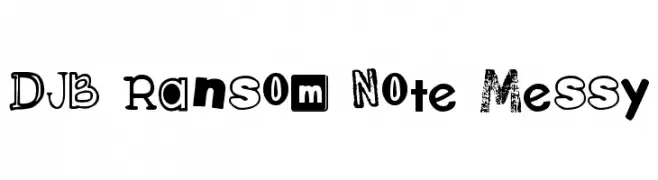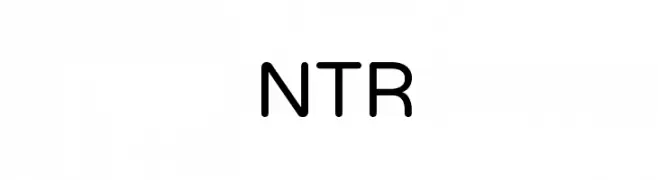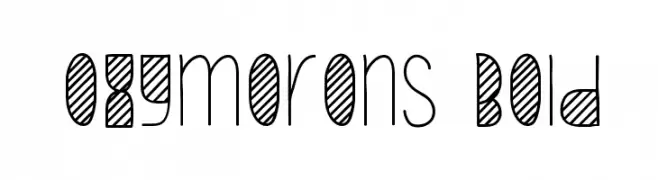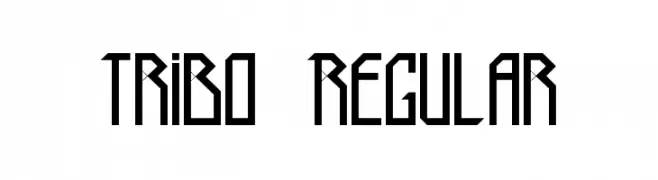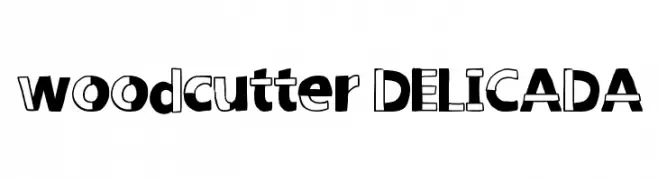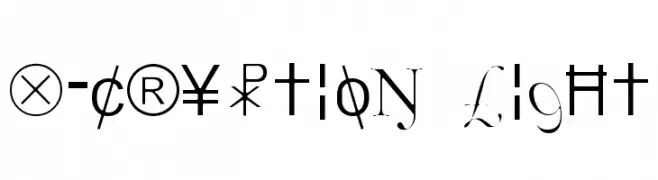
A collage-style font with a mix of eclectic and distressed characters.
A playful, bold font with a mix of solid and outlined characters.
A geometric, angular font with a bold, futuristic style.
A decorative and eclectic font with unique embellishments and a mix of modern and vintage styles.
A playful, eclectic font with a mix of bold, outlined, and decorative characters.
A modern, clean sans-serif font with rounded edges and uniform strokes.
A playful, whimsical font with a mix of outlined and filled elements, ideal for creative projects.
A playful, hand-drawn font with a mix of solid and striped patterns.